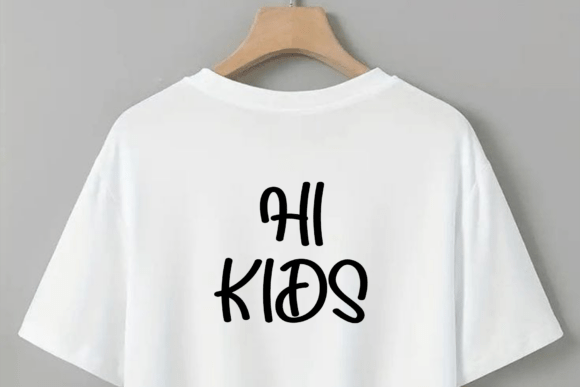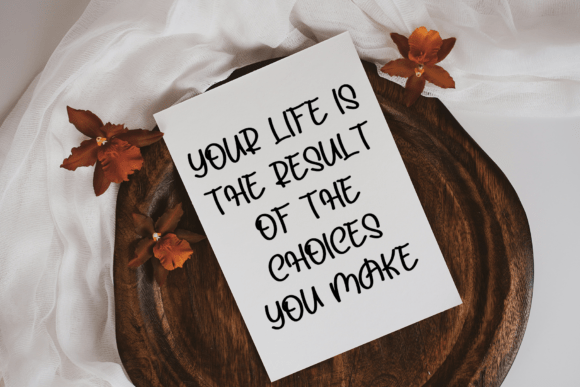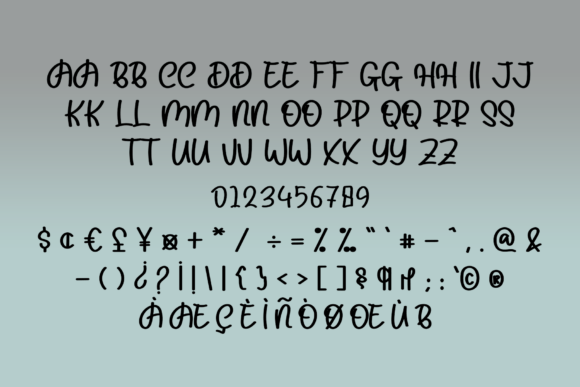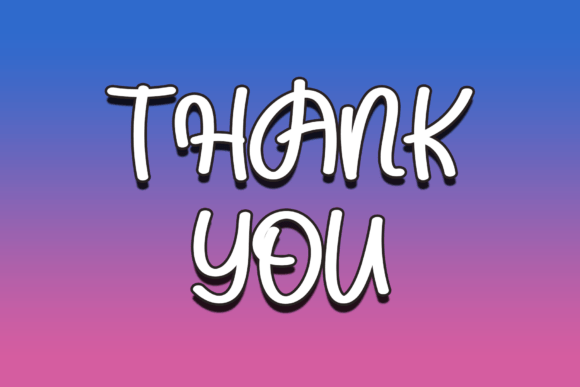
Introducing Hello Font: The Perfect Blend of Freshness and Elegance
Hello Font is a charming handwritten font that has taken the design world by storm. With its fluid strokes and organic lines, this font exudes a sense of freshness and casual elegance, making it perfect for a wide range of design projects. Whether you’re a designer, crafty DIY enthusiast, or social media influencer, Hello Font is sure to add a touch of warmth and personality to your creations.
The Characteristics of Hello Font
Hello Font is a handwritten font that boasts a unique and distinctive style. Its fluid strokes and organic lines give it a laid-back vibe, making it perfect for designs that require a touch of whimsy and playfulness. The font’s casual elegance also makes it suitable for more formal designs, such as branding and invitations.
One of the standout features of Hello Font is its ability to evoke emotions and convey personality. The font’s friendly and approachable demeanor makes it perfect for designs that require a human touch. Whether you’re creating a logo, social media graphic, or invitation, Hello Font is sure to add a touch of warmth and approachability.
Uses of Hello Font
Hello Font is a versatile font that can be used for a wide range of design projects. Here are some of the most popular uses of this charming font:
• Branding: Hello Font is perfect for creating logos, business cards, and other branding materials that require a touch of personality and whimsy.
• Invitations: The font’s casual elegance makes it suitable for creating invitations for special occasions, such as weddings, birthday parties, and baby showers.
• Social Media Graphics: Hello Font is perfect for creating social media graphics, such as Facebook posts, Instagram stories, and Twitter headers, that require a touch of personality and flair.
• DIY Projects: Crafty DIY enthusiasts will love using Hello Font for their craft projects, such as making handmade cards, gift tags, and other paper crafts.
Benefits of Using Hello Font
There are many benefits to using Hello Font in your design projects. Here are some of the most significant advantages:
• Unique and Distinctive: Hello Font is a unique and distinctive font that will set your designs apart from the crowd.
• Easy to Read: The font’s clear and legible design makes it easy to read, even at small sizes.
• Versatile: Hello Font can be used for a wide range of design projects, from formal branding materials to casual social media graphics.
• Time-Saving: With Hello Font, you can create professional-looking designs in no time, saving you time and effort.
Tips for Using Hello Font
Here are some tips for using Hello Font in your design projects:
• Experiment with Different Sizes: Hello Font looks great at a variety of sizes, so don’t be afraid to experiment with different sizes to find the one that works best for your design.
• Pair with Other Fonts: Hello Font pairs well with other fonts, so try combining it with a sans-serif font for a contrasting look.
• Use for Headings and Titles: Hello Font is perfect for headings and titles, so try using it to add a touch of personality to your designs.
• Don’t Overuse: While Hello Font is a beautiful font, it’s best to use it sparingly to avoid overwhelming your design.
Hello Font is a charming handwritten font that is perfect for designers, crafty DIY enthusiasts, and social media influencers. With its fluid strokes and organic lines, this font exudes a sense of freshness and casual elegance, making it suitable for a wide range of design projects. Whether you’re creating branding materials, invitations, social media graphics, or DIY projects, Hello Font is sure to add a touch of warmth and personality to your creations.